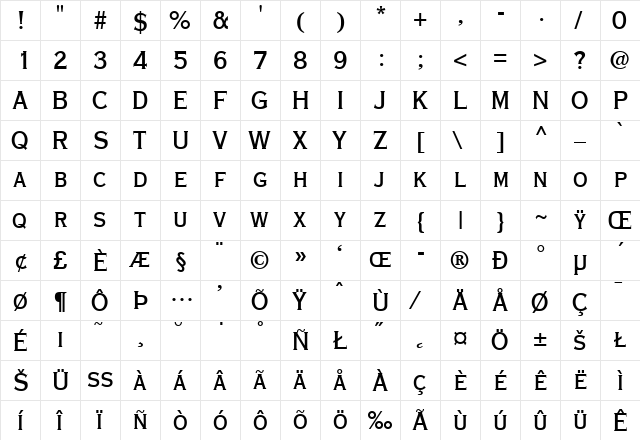
Copperplate-ThirtyAB Regular
Design Context for Copperplate-ThirtyAB Typeface
Copperplate-ThirtyAB offers clean, dependable letterforms without strong stylistic allegiance, making it a practical choice for designers who need flexibility.